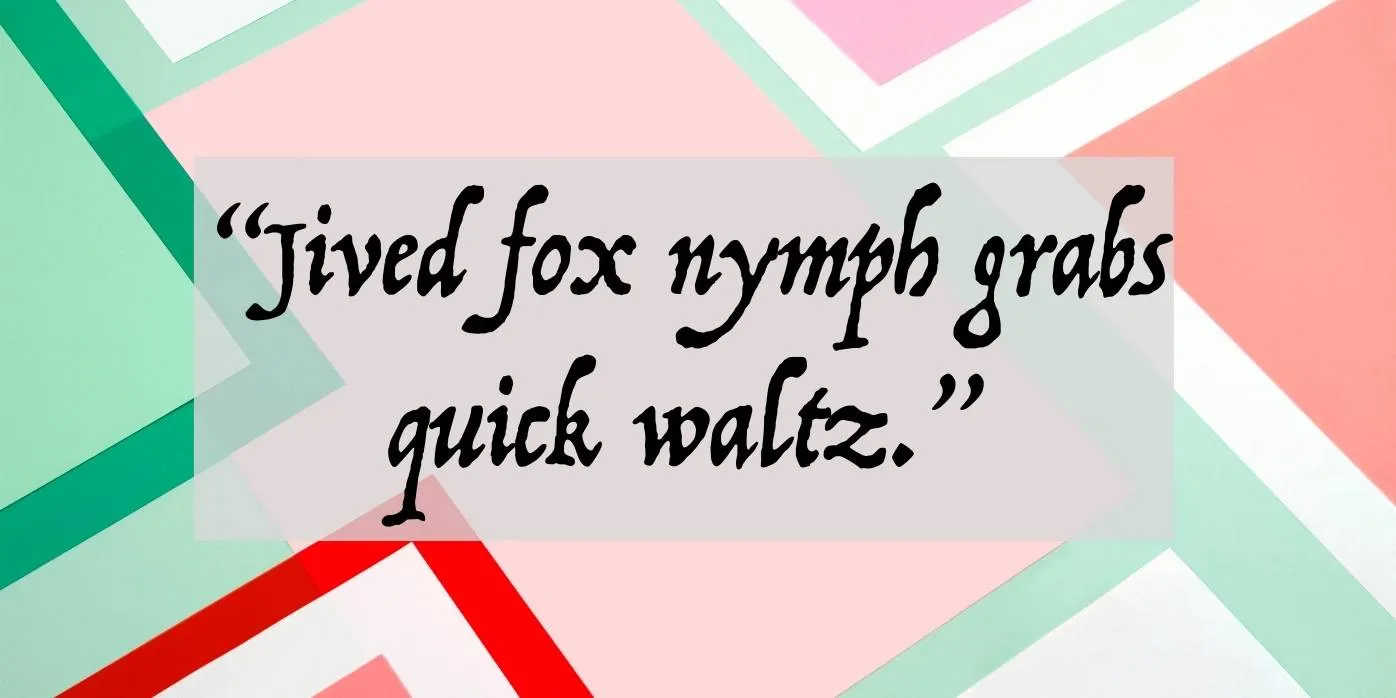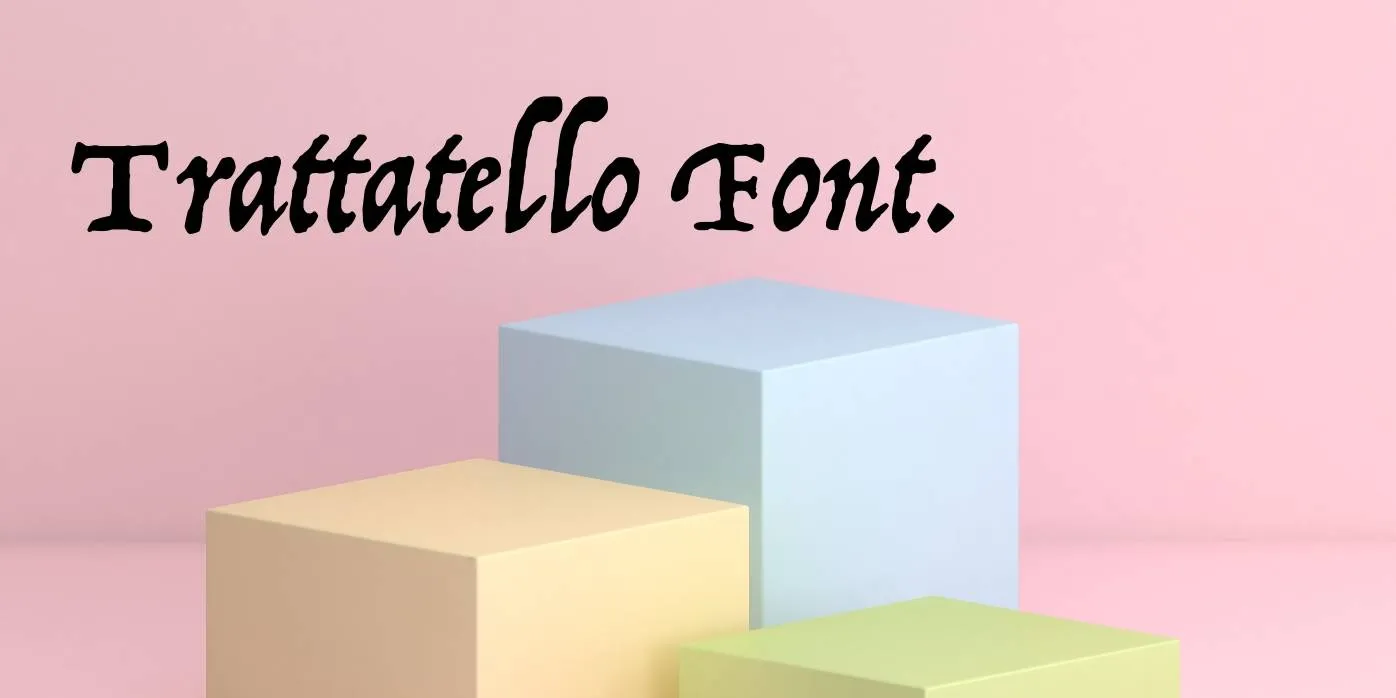
Trattatello Font
Here we are consulting about a tremendous and reputable font family that was known by the name Trattatello Font. This cozy typeface belongs to the Fancy font family. This stylish typeface was developed by a very brilliant and intelligent manufacturer named  Mr. James Grieshaber.
In the year 2005, This font family was released for the first time in public. This marvelous font is available in four different and unique weights and multiple weights. Some of its famous and common fonts are Italic, Bold, Regular, and others. All of these weights and styles make it progressive.
Another good thing is that this cute font contains a greater variety of popular characters. These characters are symbols, numerals, icons, punctuations, and many more others. A lot of developers continuously work with this font family in their projects. Because that font family provides a charming and soft look to all of your designs.